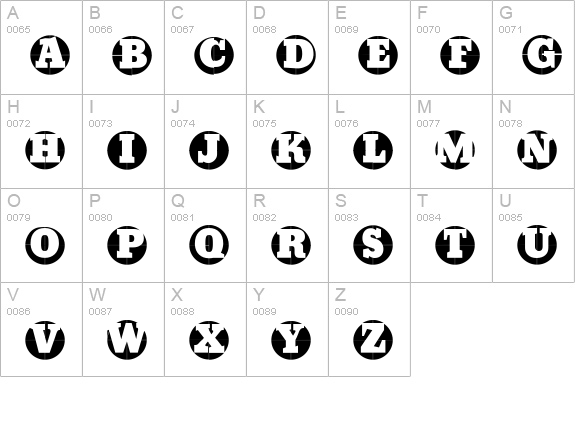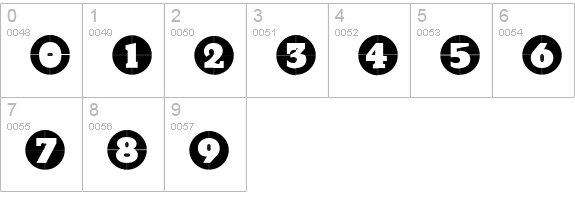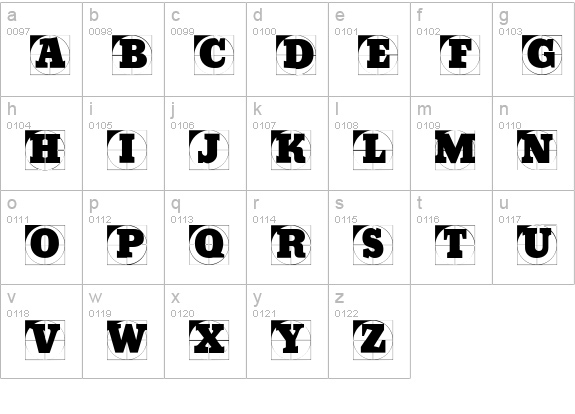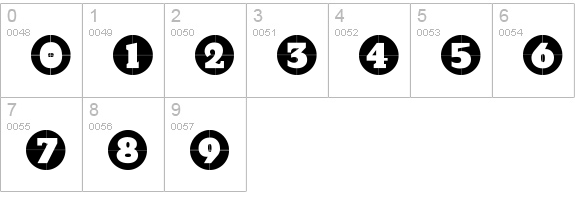
GridConcreteLogoable font is a modern and versatile typeface that is perfect for creating sleek and professional logos. Its clean lines and geometric shapes make it a great choice for any design project that requires a contemporary aesthetic. This font is free to download at FontsMarket.com, making it accessible to designers of all levels. With its unique style and legibility, GridConcreteLogoable is sure to make your logos stand out from the crowd. Whether you're designing a logo for a business, brand, or personal project, this font is a fantastic option that will help you achieve a polished and sophisticated look.